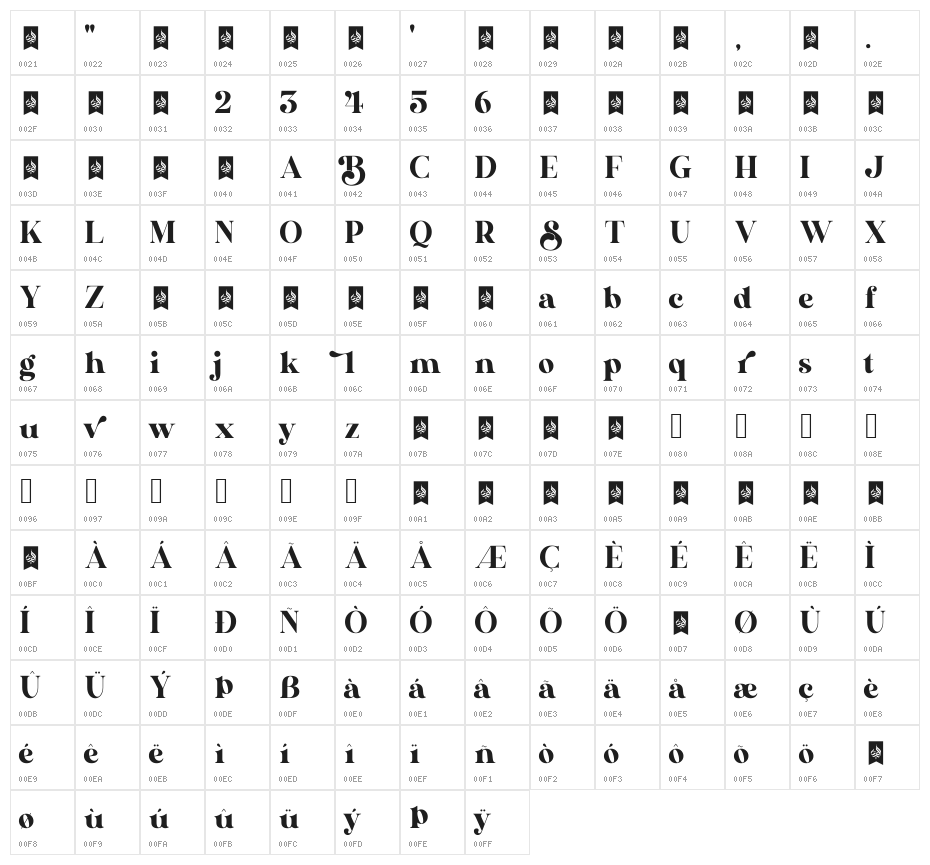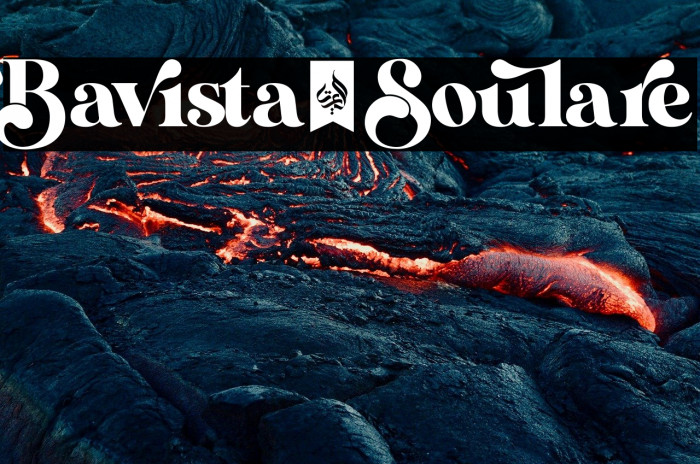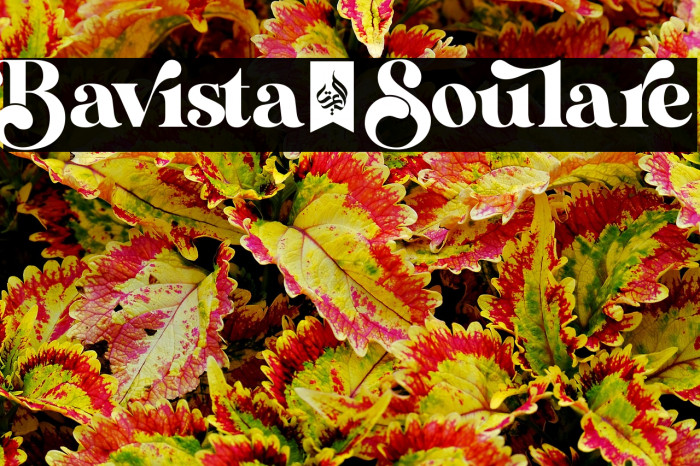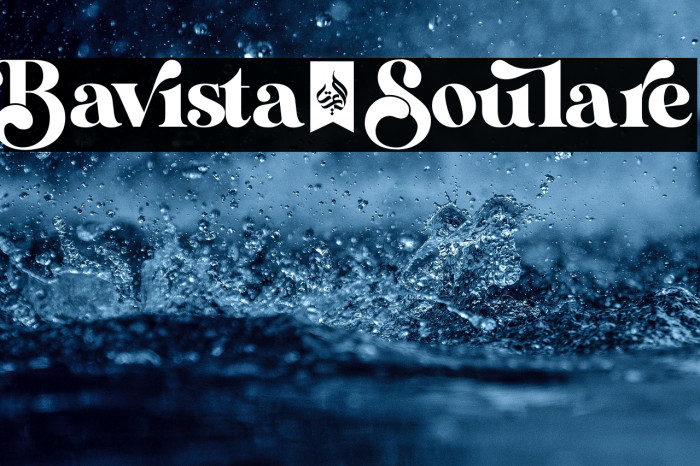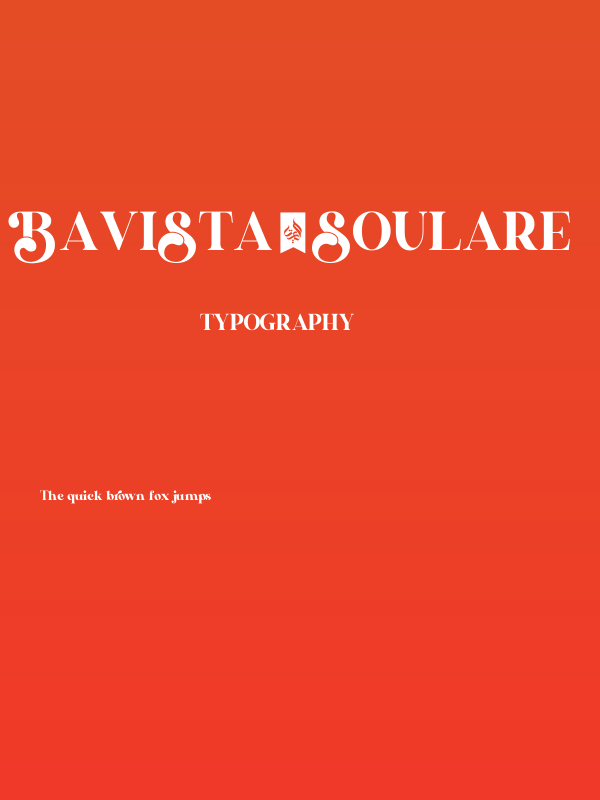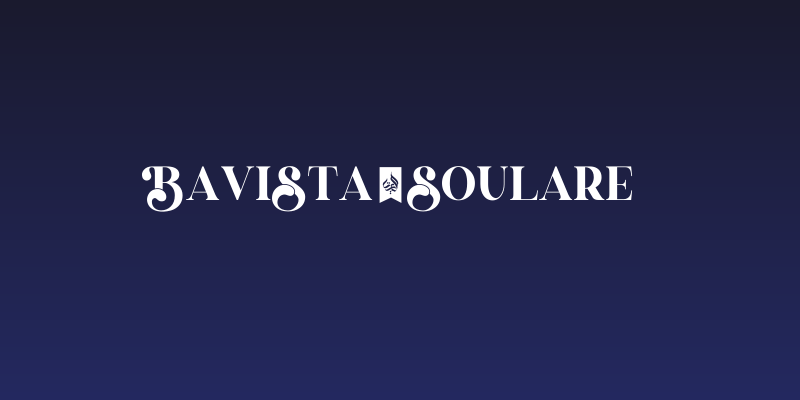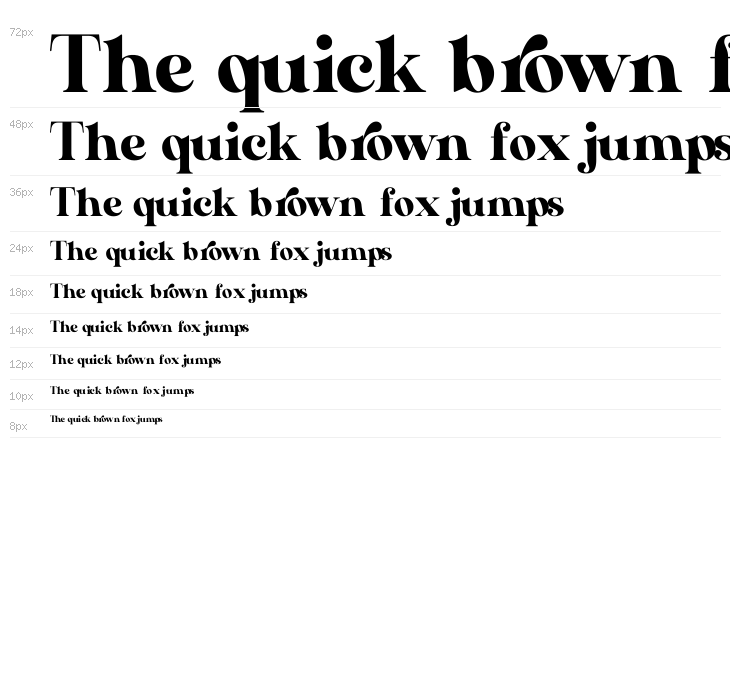
Bavista_Soulare Font
Bavista_Soulare Description
This font features a bold and dramatic style with high contrast between thick and thin strokes. The uppercase letters are characterized by their strong, angular serifs and unique curves, giving them a distinctive and artistic flair. The lowercase letters maintain a consistent style with rounded forms and pronounced serifs, creating a cohesive and visually striking appearance. The numerals are bold and follow the same high-contrast design, ensuring readability and aesthetic appeal. Special characters are creatively integrated, adding to the font's decorative nature. Overall, this font exudes a sense of elegance and sophistication, making it suitable for a variety of creative applications.
| Proposed Projects | Ideal for branding, editorial design, posters, and luxury packaging. |